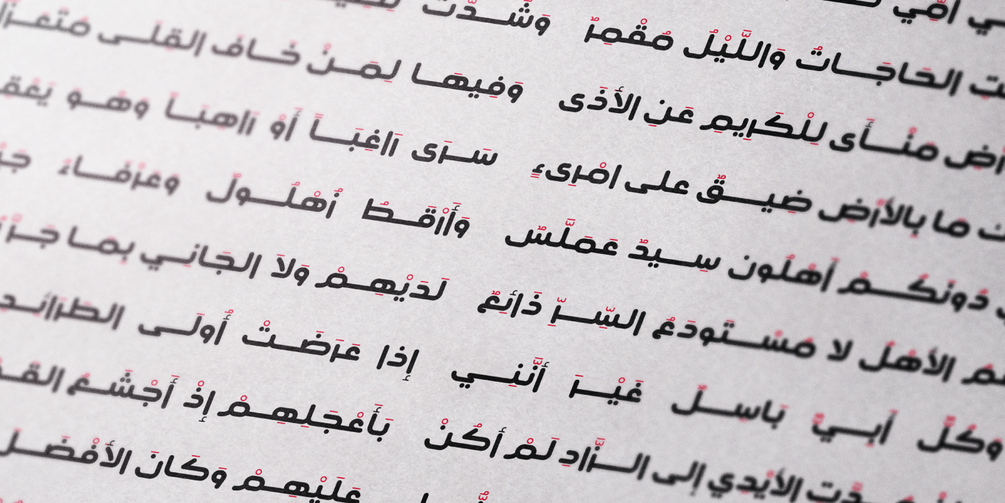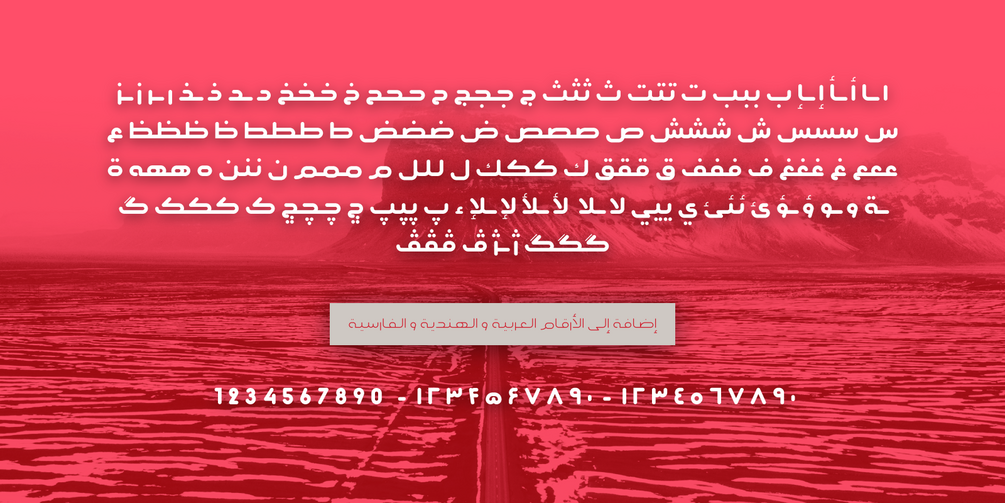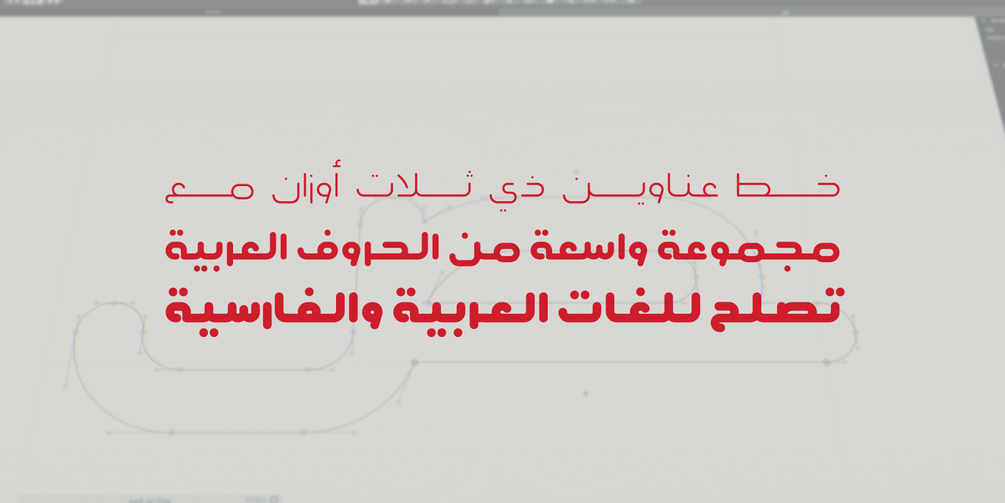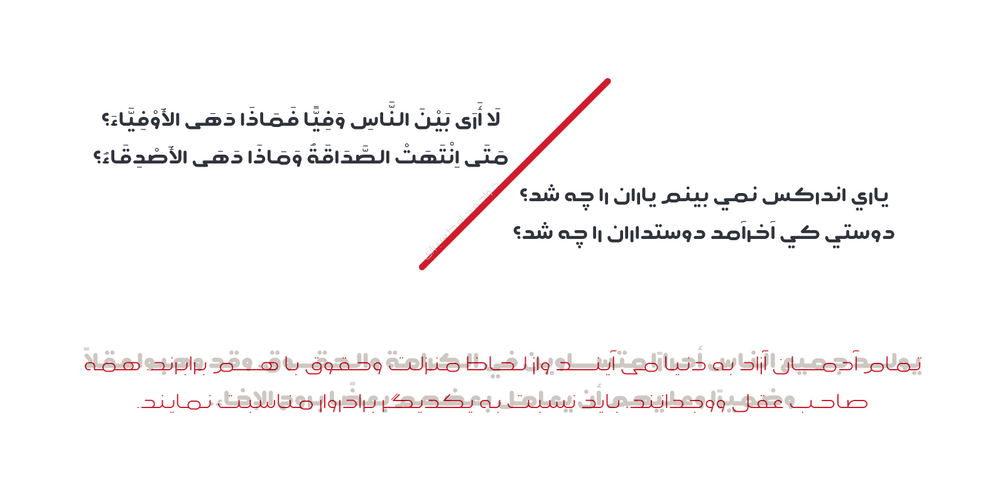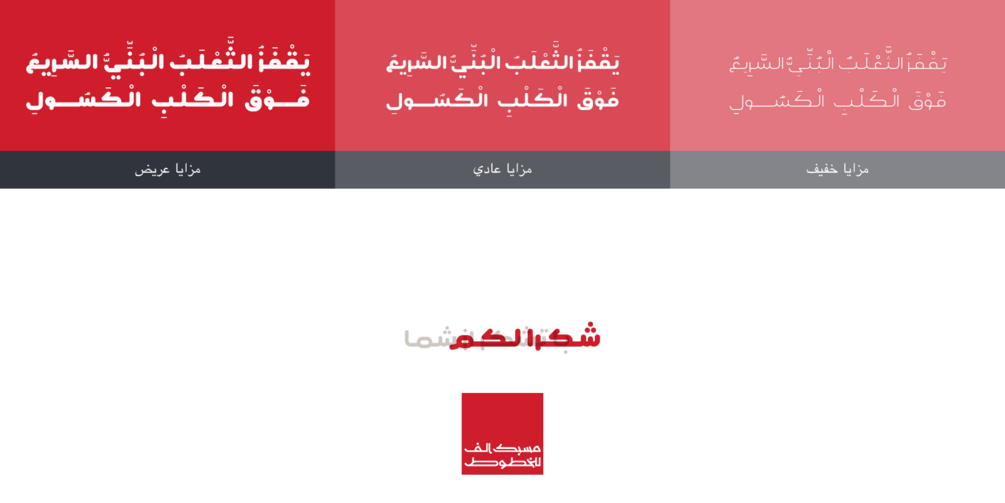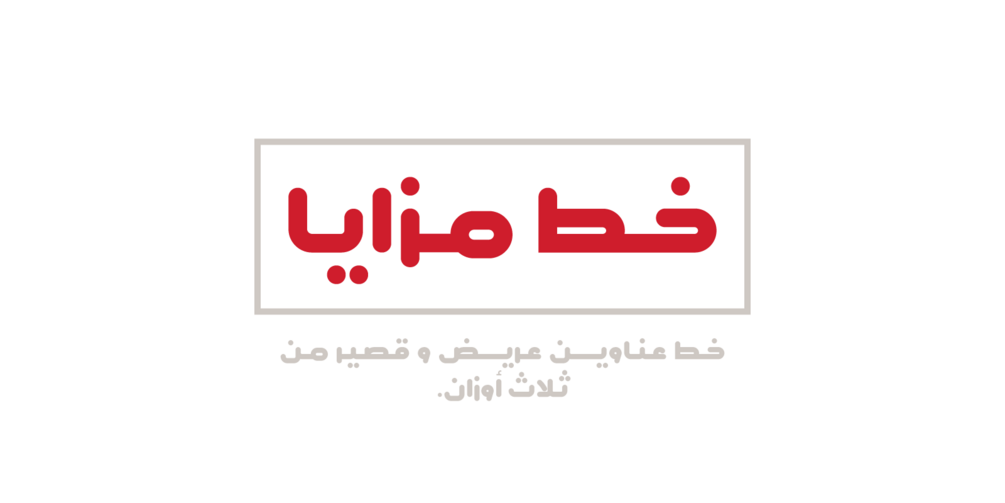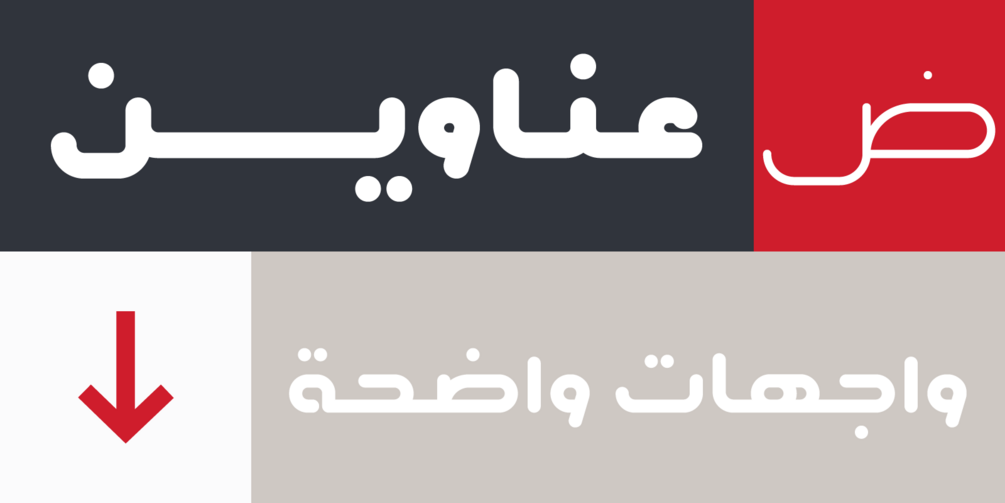
Mazaya Font Family
Mazaya is a bold geometric arabic typeface crafted with heading in mind. The letterforms were built based on the kufic structure with short ascenders and descenders cut to a minimum length.